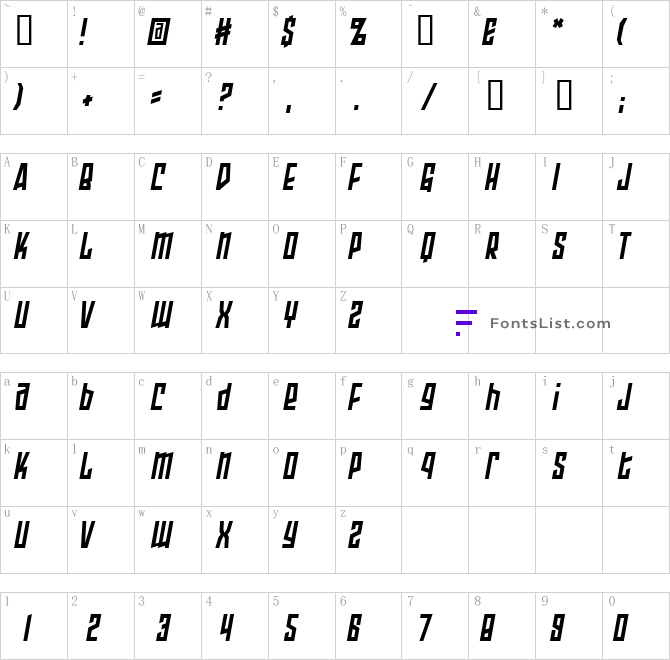
- Font Name:Armor Piercing 2.0 BB
Armor-Piercing-20-BB-Italic.ttf is a very beautiful artistic font, Armor-Piercing-20-BB-Italic.ttf is widely used in the design and printing of various books and pictures,Armor-Piercing-20-BB-Italic.ttf has a strong visual impact,Armor-Piercing-20-BB-Italic.ttf is a commonly used font in newspapers, magazines and books, and is used in posters, e-commerce Poster design, store design, logo design, font design and other fields.Armor-Piercing-20-BB-Italic.